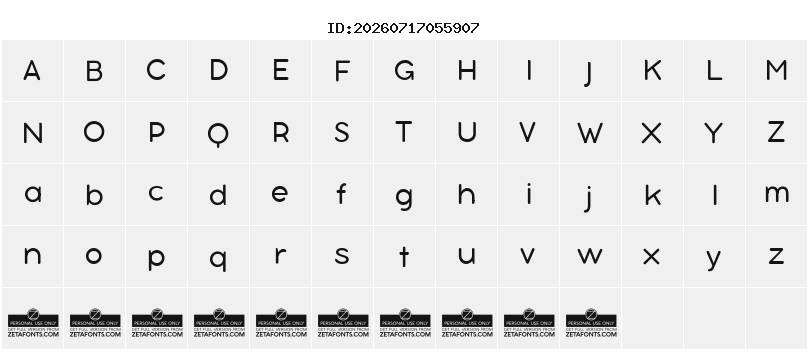
• Font Name: Bubbleboddy Neue Trial
• Font Style: Light
• Font ID: Zetafonts: Bubbleboddy Neue Trial Light: 2016
• Full Font Name: Bubbleboddy Neue Trial Light
• PostScript Name: BubbleboddyNeueTrial-Light
• Designer: Francesco Canovaro
• Manufacturer: Zetafonts
About Bubbleboddy Neue Trial.ttf
Bubbleboddy Neue Trial.ttf is a modern, elegant sans-serif font designed for ultimate readability and visual harmony. Perfect for branding, headlines, web design, and print materials.